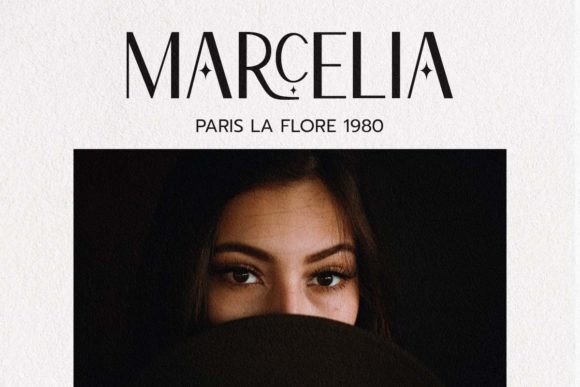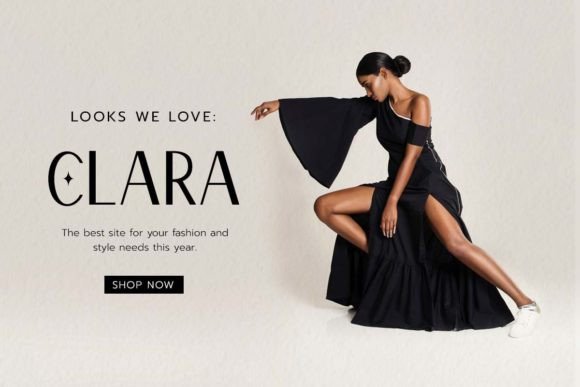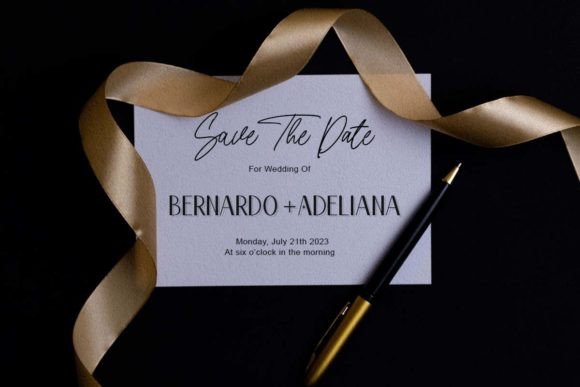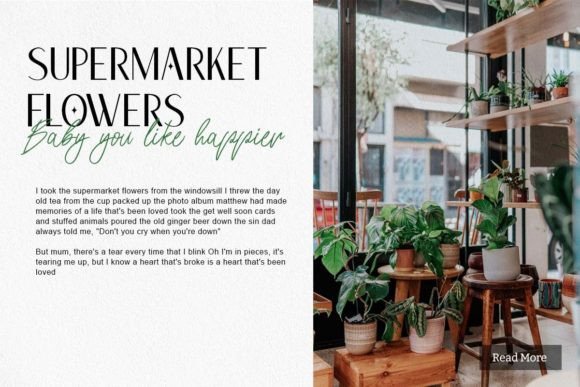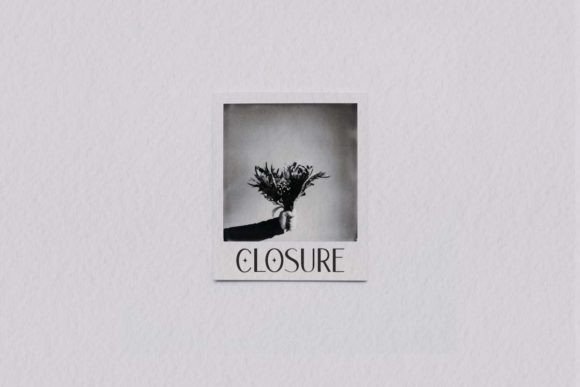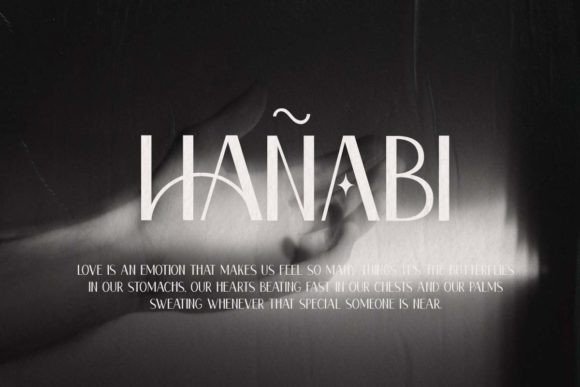
Introducing Hanasta Font: The Epitome of Modern Minimalist Elegance
In the realm of typography, the quest for the perfect font is a never-ending journey. For designers and crafters, a font can make or break a design. It’s not just about conveying a message; it’s about evoking emotions and creating a lasting impression. This is where Hanasta Font comes into play – a modern minimalist sans-serif display font that is poised to revolutionize the way you approach design.
The Birth of Hanasta: A Blend of Simplicity and Sophistication
Hanasta Font is the brainchild of a meticulous design process aimed at combining the sleek, simple characteristics of a sans-serif font with the elegance of beautiful ligatures. The result is a stunning typeface that exudes sophistication and elegance, making it an ideal choice for a wide array of design projects. Whether you’re working on fashion websites, logo design, branding, social media design, books, magazines, or wedding invitations, Hanasta is the perfect companion to bring your creative visions to life.
Key Features of Hanasta Font
- Modern Minimalist Aesthetic: Hanasta boasts a clean and simple design that screams modernity. Its minimalist approach ensures that your designs look sleek and uncluttered, perfect for making a bold statement in the digital age.
- Sans-Serif Elegance: The sans-serif characteristic of Hanasta lends it a contemporary feel that’s hard to ignore. It’s versatile enough to fit into various design contexts while maintaining its unique charm.
- Beautiful Ligatures: What sets Hanasta apart is its inclusion of beautiful ligatures. These special connections between letters add a touch of elegance and fluidity to your text, elevating it from mundane to extraordinary.
- High Versatility: Hanasta’s design ensures it can be used across a multitude of platforms and projects. From digital interfaces like fashion websites and social media graphics to print materials such as books, magazines, and wedding invitations, Hanasta adapts seamlessly.
Applications of Hanasta Font
The versatility of Hanasta Font makes it a valuable asset for designers across various fields. Here are some of the ideal applications for Hanasta:
- Fashion Websites: Make a statement with your fashion website’s typography. Hanasta’s modern and elegant design is perfect for showcasing fashion brands, collections, or editorial content.
- Logo Design and Branding: A logo is often the first impression of a brand. Hanasta’s unique ligatures and sleek lines make it an excellent choice for creating memorable logos and comprehensive branding strategies.
- Social Media Design: Stand out on social media with Hanasta. Its clean and elegant appearance is sure to capture attention and convey your message effectively across various platforms.
- Books and Magazines: For print materials, Hanasta brings a touch of sophistication. It’s perfect for headings, titles, and any section where you want to make an impact.
- Wedding Invitations: Add a touch of elegance to your wedding invitations. Hanasta’s beautiful ligatures and minimalist design make it ideal for creating bespoke wedding stationery.
Why Choose Hanasta Font?
In a sea of fonts, Hanasta stands out for its unique blend of modern minimalism and elegant ligatures. Here are a few reasons why Hanasta should be your go-to font:
- Unique Appeal: Hanasta offers a fresh perspective on sans-serif fonts, providing a unique appeal that’s hard to find elsewhere.
- Ease of Use: Despite its sophisticated look, Hanasta is incredibly easy to use, making it accessible for designers of all skill levels.
- Time-Saver: With Hanasta, you can achieve professional-looking results quickly, saving you time and effort in your design process.
| Font Name | Hanasta Font |
| Author | Scratch Design |
Hanasta Font is more than just a typeface; it’s a design statement. Its perfect blend of modern minimalism and elegant ligatures makes it an indispensable tool for designers looking to create sophisticated and elegant designs. Whether you’re a professional designer or a DIY enthusiast, Hanasta invites you to explore new dimensions of typography and design. Welcome Hanasta to your design arsenal and experience the difference it can make in your creative projects.